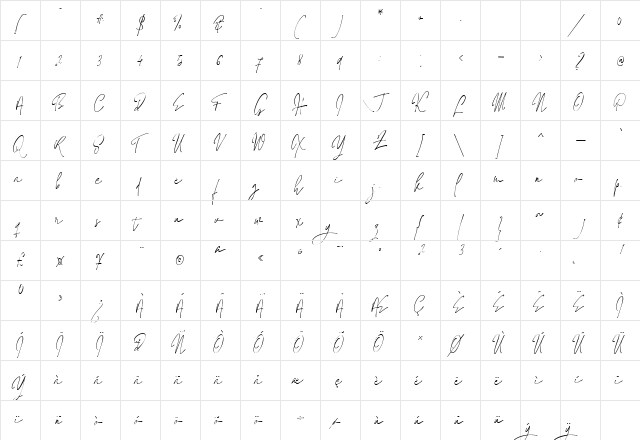
Jaccuzy Signature Regular
| Foundry | Colllab Studio |
| Designer | Didi Syarif |
Design Context for Jaccuzy Signature Typeface
Jaccuzy Signature is a composed and adaptable typeface that performs quietly and consistently across a wide range of design contexts.